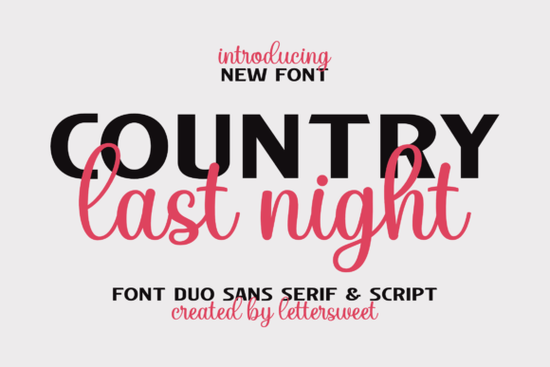
If you’ve been searching for a font that feels both nostalgic and fresh, Country Last Night Duo Font might be exactly what your next project needs. It’s not flashy or overdone just two well-paired typefaces that work together to add warmth and personality without overwhelming your layout. Whether you’re designing wedding invites, branding a small business, or personalizing product labels, this duo gives you room to play while keeping things polished.
What makes this font duo actually useful in real projects?
The strength of Country Last Night lies in its balance. One style leans into soft, handwritten curves perfect for names, quotes, or focal headlines. The other is cleaner, more structured, ideal for supporting text or details that need to stay readable. Together, they create contrast without clashing. You don’t need to be a typography expert to make them look good. Just pair the script with the sans-serif companion, and you’ve got hierarchy built right in.
- Wedding designers love how it adds romance without looking cliché.
- Small shop owners use it on packaging and social posts to feel more personal.
- Crafters and POD sellers find it works beautifully on mugs, totes, and greeting cards.
- Photographers watermark images with it because it doesn’t distract from the photo.
How does it compare to other script fonts I’ve seen?
It’s less rigid than single line fonts, which are great for engraving but can feel sparse in print. It’s also more grounded than something like Rainbow, which leans playful and colorful. If you liked the moodiness of Nostalgic Words but wanted something a bit more versatile for modern layouts, this duo fills that gap. And if you’ve ever tried Thunder Heat for bold impact, Country Last Night offers a gentler, more approachable alternative.
Even compared to stencil-style options like RoFlag, which have an industrial edge, this font feels inviting like something you’d see on a boutique label or a hand-addressed envelope.
- Use generous spacing especially with the script version. Tight kerning can make letters overlap awkwardly.
- Pair with simple sans-serifs if you’re adding a third font. Country Last Night holds attention best when it’s not competing.
- Try lowercase first. The script shines in sentence case all caps can feel heavy unless used sparingly.
Who should probably skip this font?
If you need something ultra-minimalist for tech branding or corporate reports, this isn’t your pick. It’s meant to feel human, a little imperfect, and full of character. Also, if you’re working on signage that needs to be read from far away, stick to bolder, simpler fonts. This one’s charm is in the details it’s best appreciated up close.
And if you’re already deep into fonts like Thunder Heat or RoFlag for high-energy projects, you might find Country Last Night too subdued. But that’s okay different tools for different jobs.
Open your favorite design app and test it with real content. Don’t just type “Lorem ipsum.” Try your own business name, a quote you love, or the headline of your next Instagram post. See how the two styles interact. Play with scale sometimes the script looks best huge and dominant, other times it’s perfect as a tiny accent under a clean sans-serif title.
- Test readability at small sizes adjust tracking if needed.
This font won’t shout at your audience. Instead, it whispers confidently, warmly, and with enough charm to make people lean in closer. Sometimes, that’s exactly what your design needs.